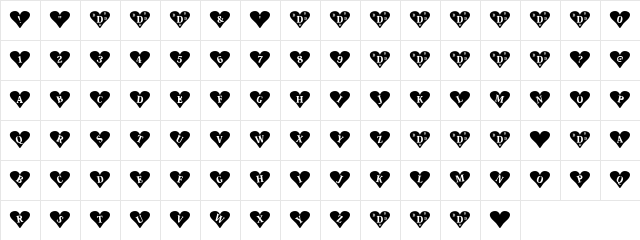
Jez Regular
Design Context for Jez Typeface
Jez is a composed and adaptable typeface that performs quietly and consistently across a wide range of design contexts.